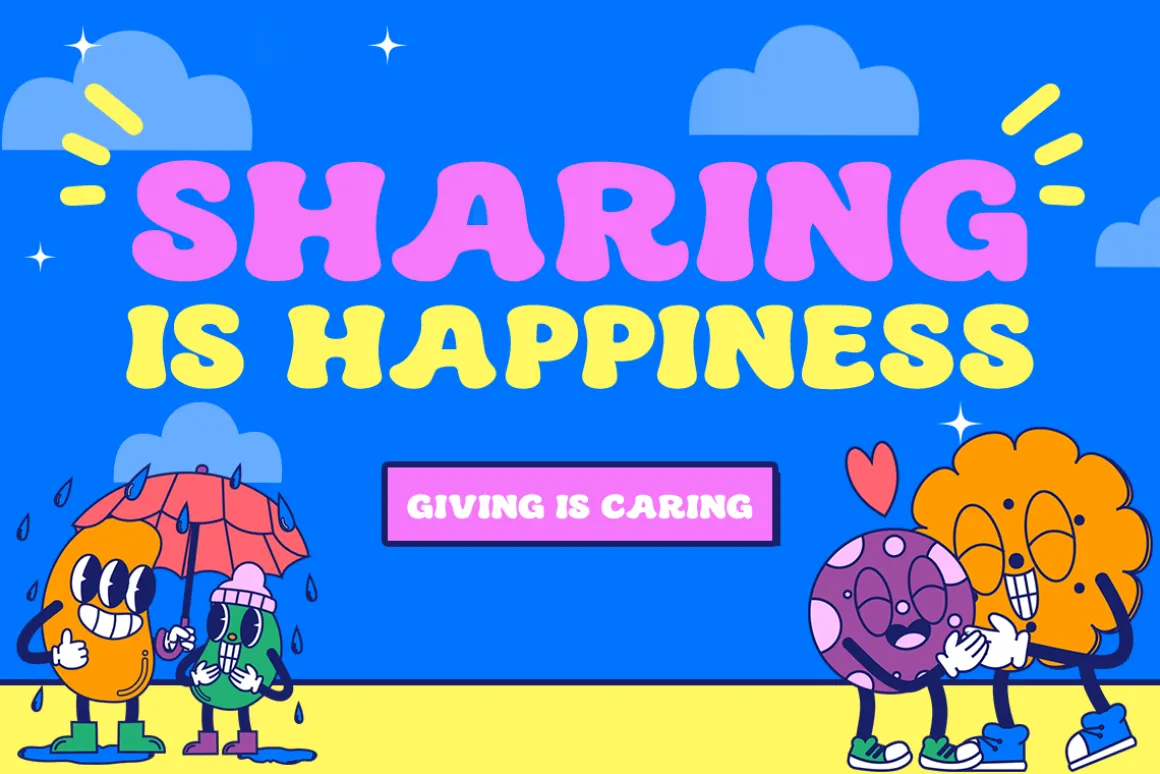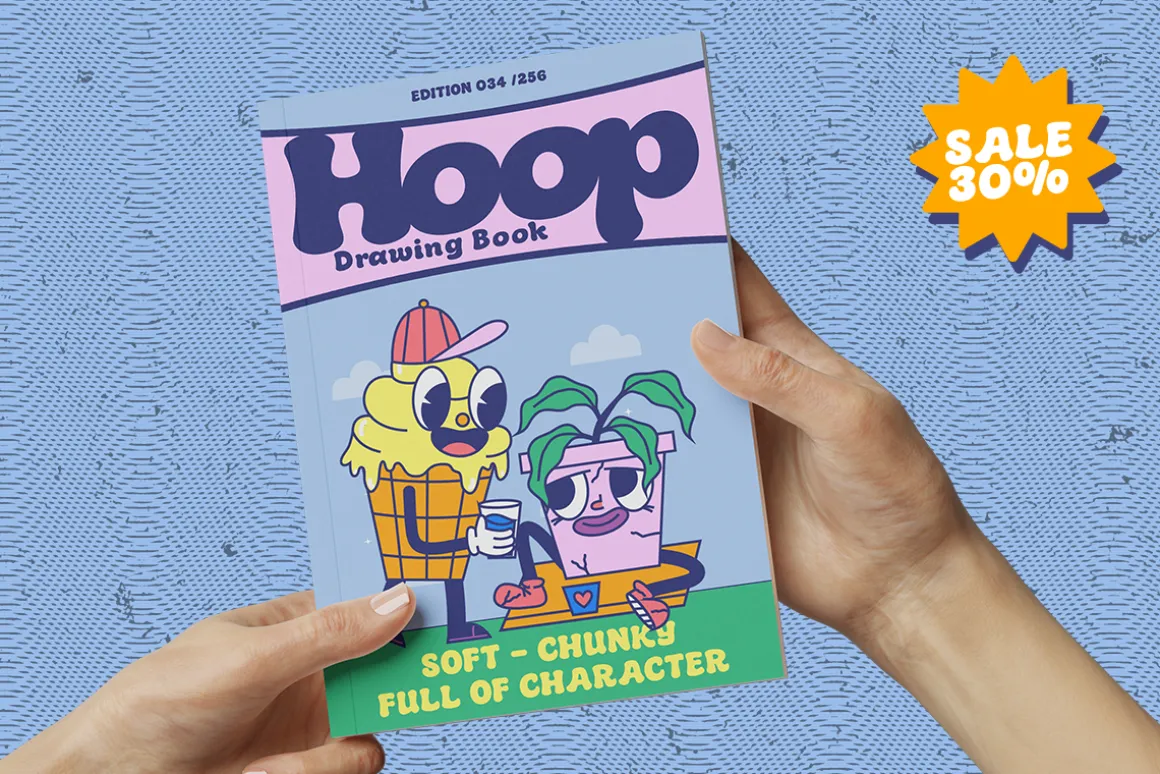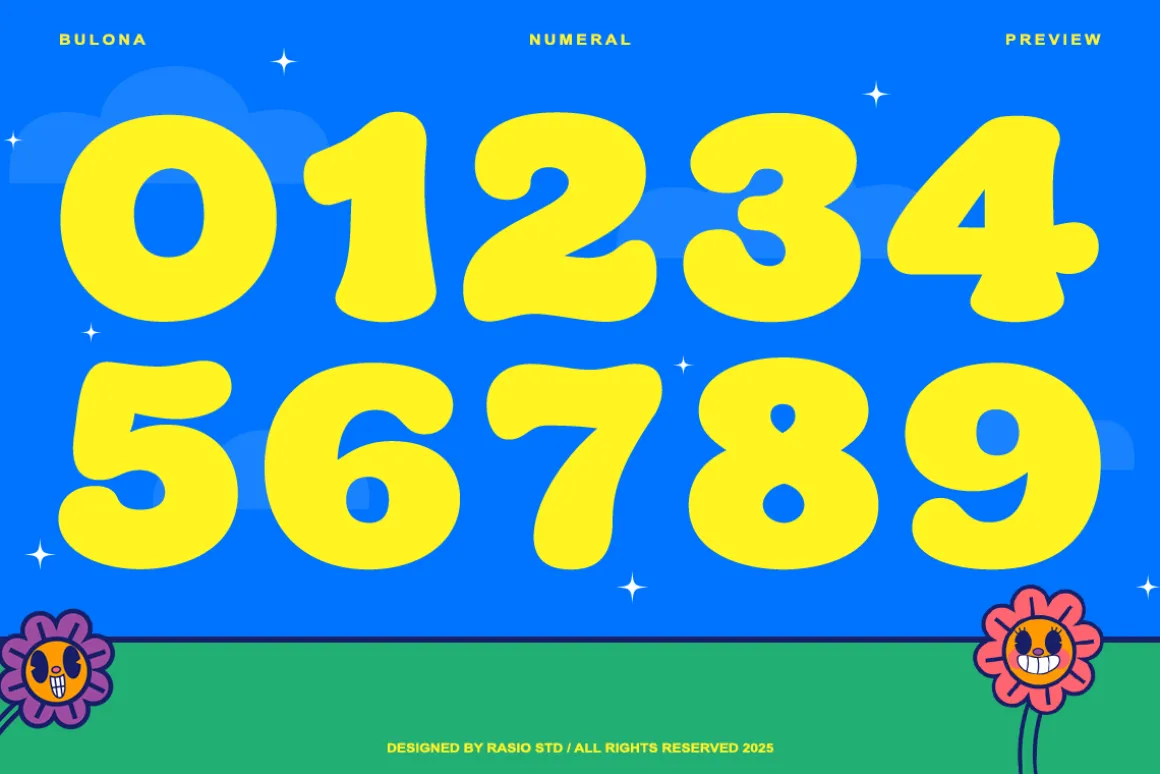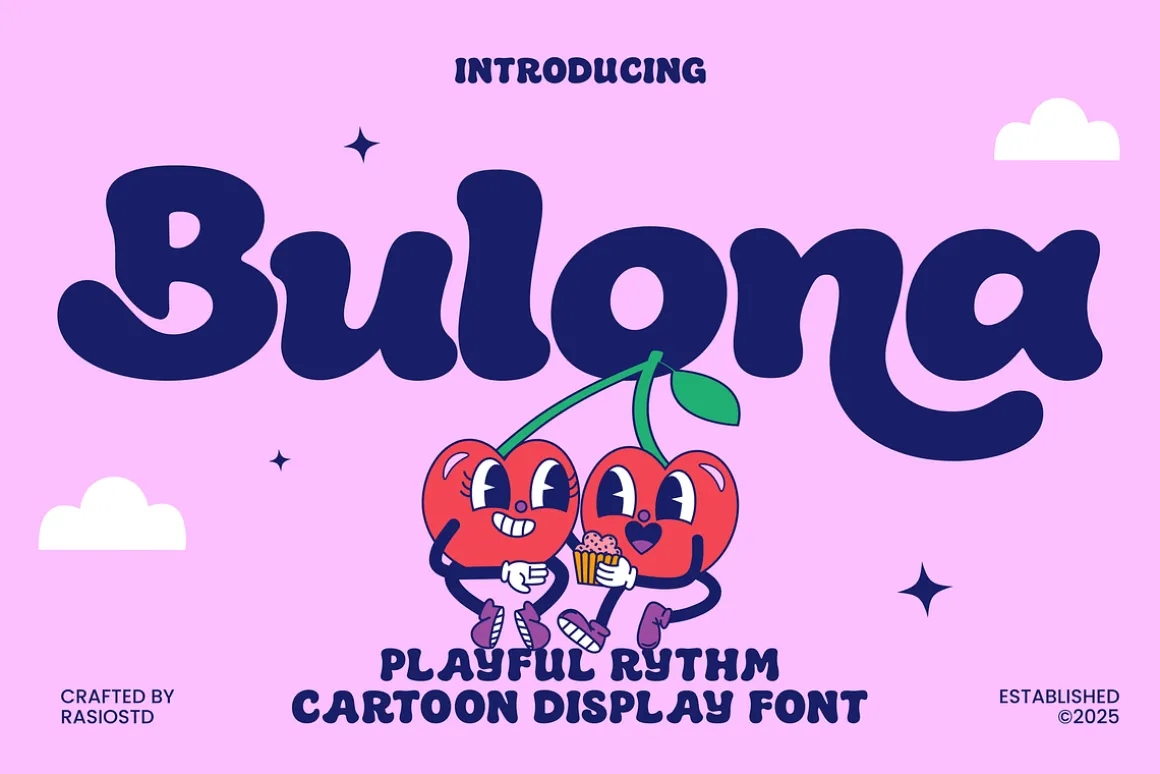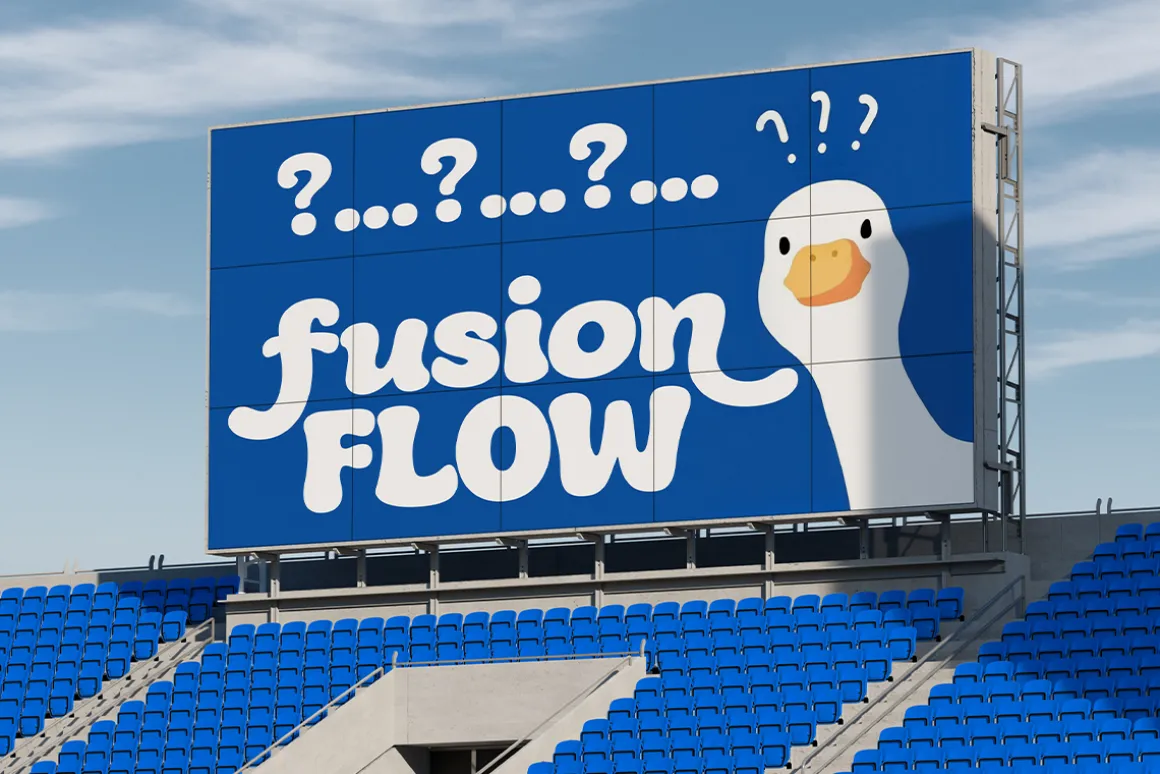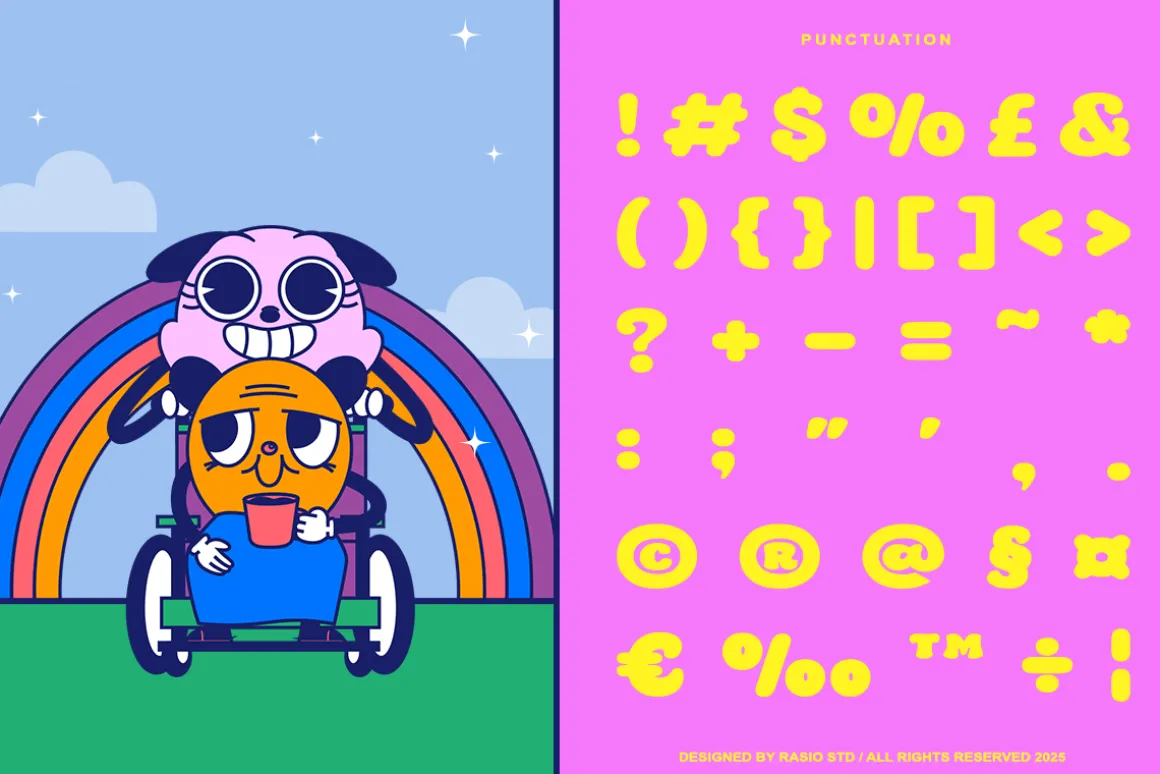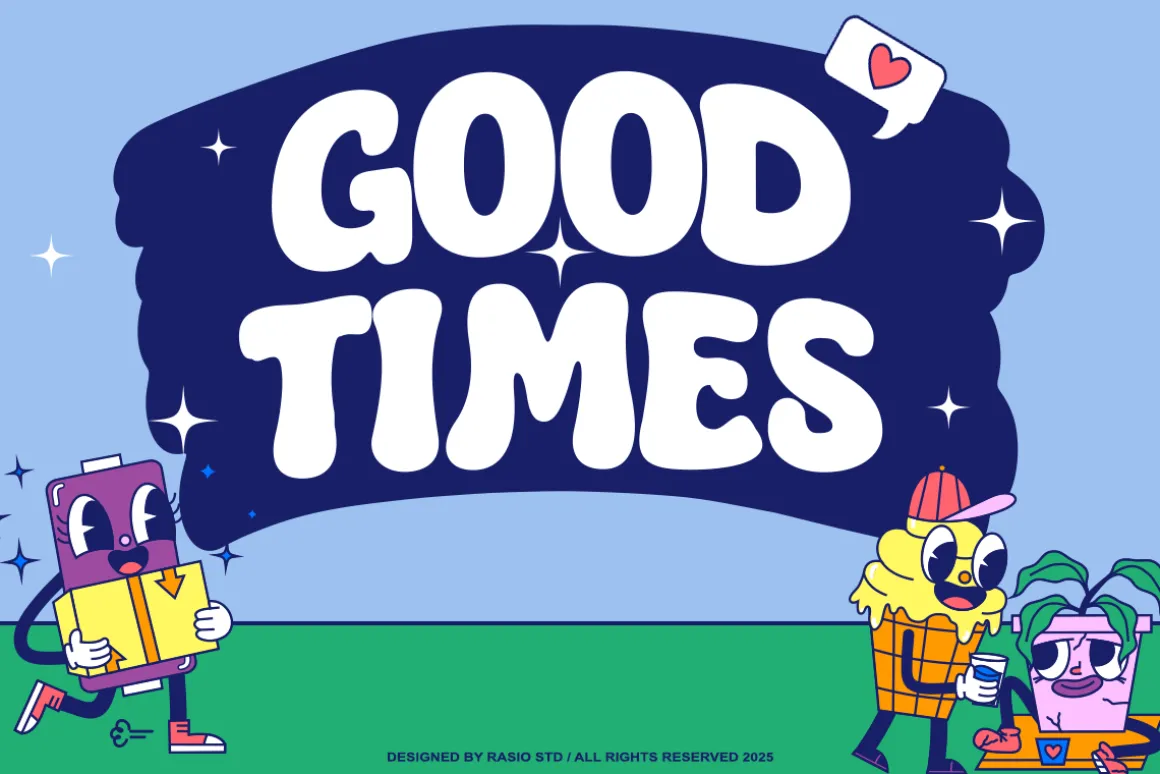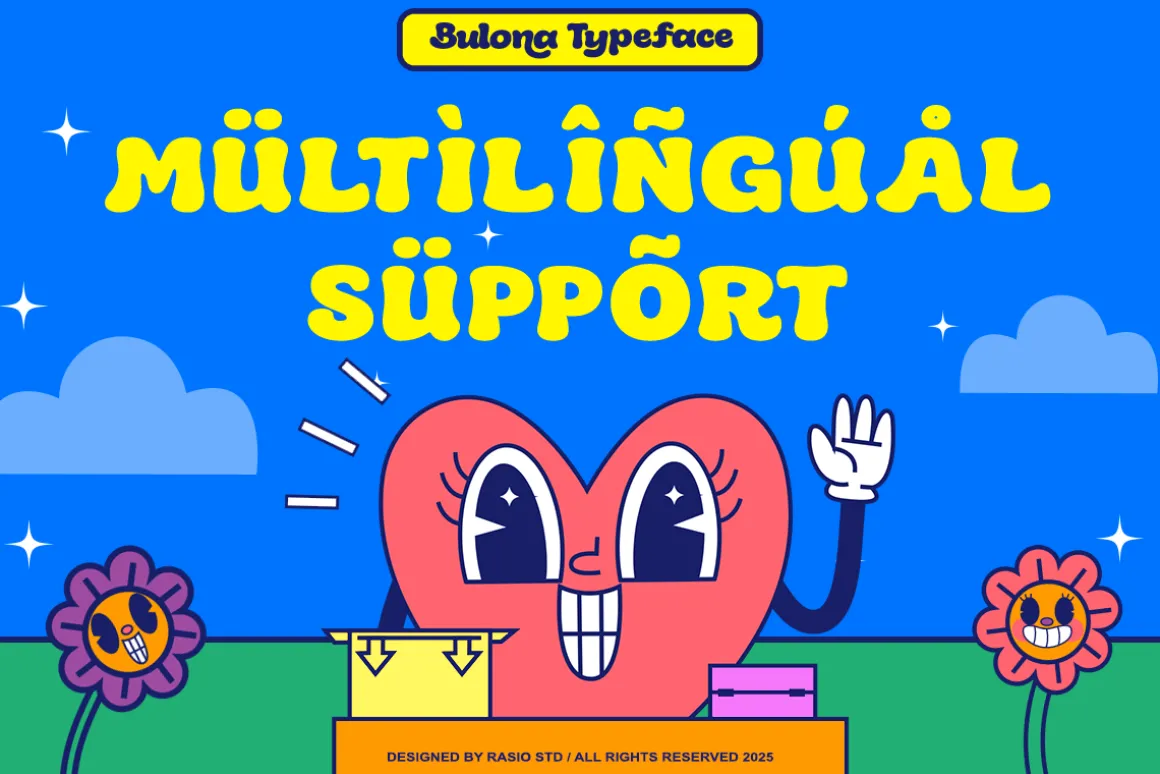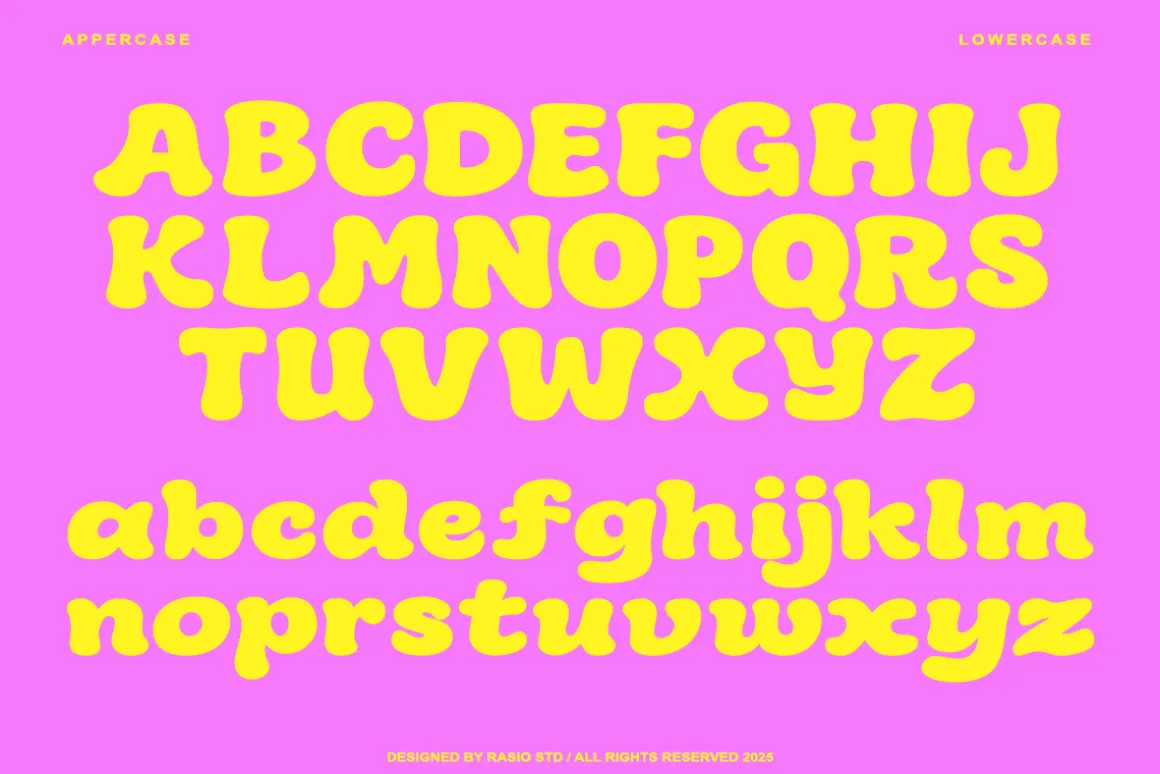
Bulona is a playful rhythm cartoon display font designed with soft rounded shapes and cheerful character forms that bring a lively and fun personality to any design. The bold bubbly letterforms create a friendly visual rhythm, making the typeface feel energetic, expressive, and highly engaging. This font is perfect for creative projects that require a joyful and colorful atmosphere. Bulona works beautifully for kids-related designs, cartoon themes, playful branding, and fun packaging.
This playful cartoon font is relevant for creative projects that require a cheerful and fun visual tone. It works perfectly for kids branding, children’s book covers, cartoon posters, toy packaging, educational materials, playful social media graphics, party invitations, comic designs, and colorful marketing visuals that aim to capture a joyful and friendly atmosphere.
Design Features
- Bold rounded letterforms with soft bubbly proportions for a cheerful cartoon appearance
- Playful rhythm in character shapes that creates a lively and friendly visual tone
- Smooth curves and thick strokes for strong readability and fun display impact
- Slightly irregular organic shapes that enhance the handmade cartoon personality
- Generous spacing and balanced proportions for clear, playful headline typography
Best Uses This Font for Creative Market
- Kids brand identity and playful product logos
- Children’s book covers and storytelling illustrations
- Toy packaging, snack labels, and fun merchandise design
- Cartoon posters, comic titles, and animated graphics
- Birthday invitations, party decorations, and kids event materials
- Social media graphics and playful marketing visuals for family-friendly brands
Bonus Functional Highlights
- Supports numerals, punctuation, and extensive symbol set